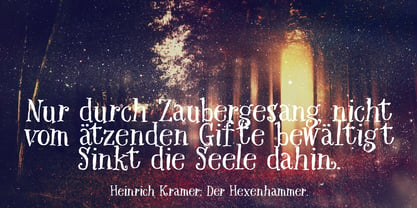
Hexenhammer
by Hanoded
About Hexenhammer Font Family
The ‘Hammer of Witches’, ‘Malleus Maleficarum’ or ‘Hexenhammer’ in German is the best know and most important treatise on witchcraft. It was composed by Heinrich Kramer in 1487. I thought it was a rather apt name for my latest fairytale font! Hexenhammer is a rough, handwritten typeface with an attitude. It can be used for book covers, posters and even spells. Comes with a bunch of end ligatures and a pandemonium of diacritics.
About Hanoded
Hanoded is a type foundry based in The Netherlands and run by David Kerkhoff. After finishing his journalism studies, David traveled extensively and ended up in Israel where he stayed for some years. David had a lot of jobs – zookeeper, goldsmith, artist and cook (to name a few), but settled on working as a tour guide and photographer. David specializes in hand printed typefaces and uses brushes, pens, ink and paint to create his – sometimes scary looking – fonts. He lives in a wee hamlet near the Rhine river, with his wife, three kids, a handful of extremely spoiled chickens and two guinea pigs called Cookie and Chippie.The Premium foundry page can be viewed https://www.myfonts.com/a/font/premium-font-collections/hanoded